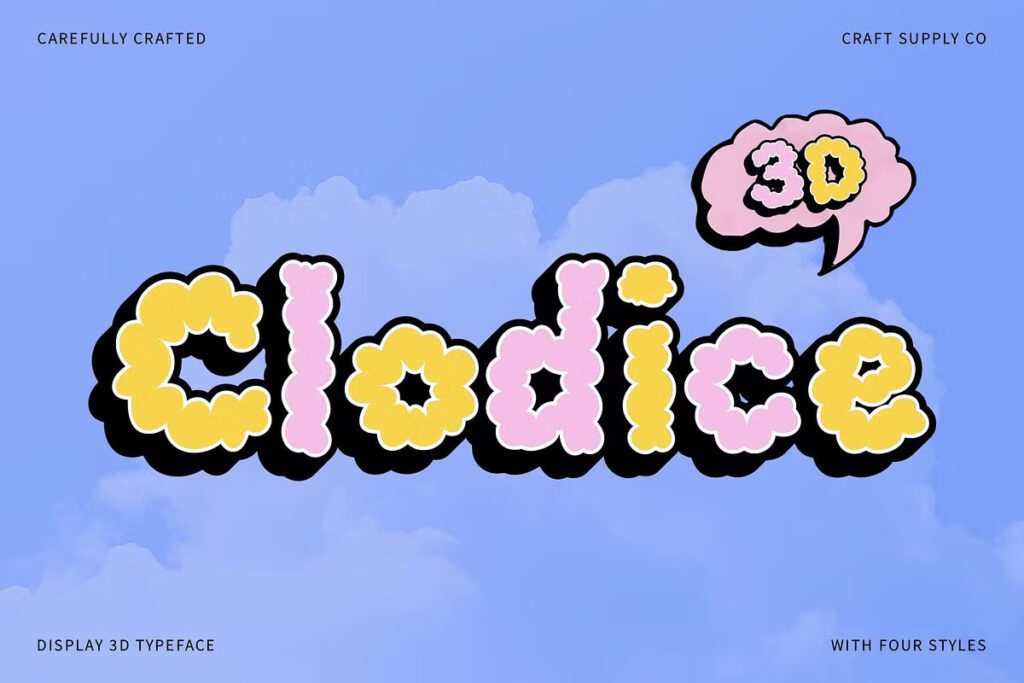
Clodice 3D – A Playful Bubble Display Font
Add a pop of fun with Clodice 3D, a cheerful, vibrant display font designed to captivate! With its bubbly, three-dimensional style, Clodice brings playfulness and depth to every project, from children’s event posters to joyful product packaging. Available in styles like Regular, Outline, and Extrude, Clodice 3D is a font full of character, perfect for youthful, energetic designs.